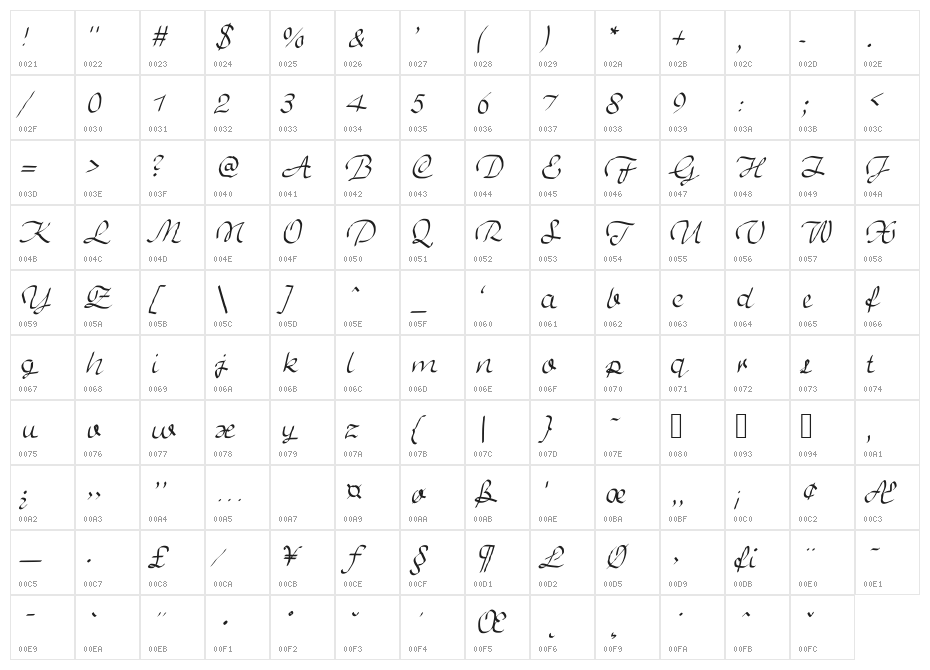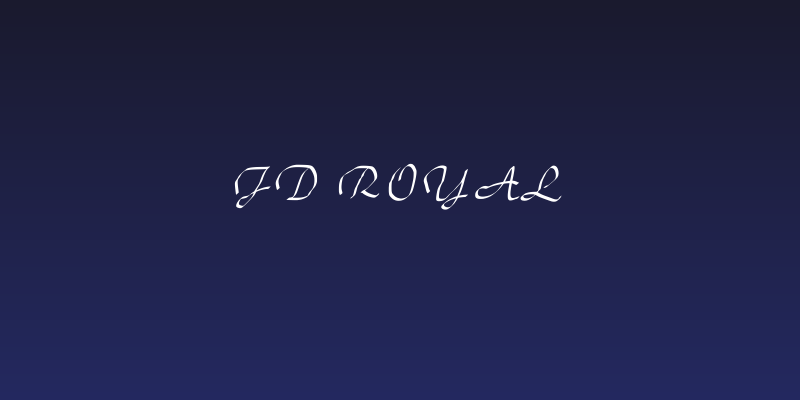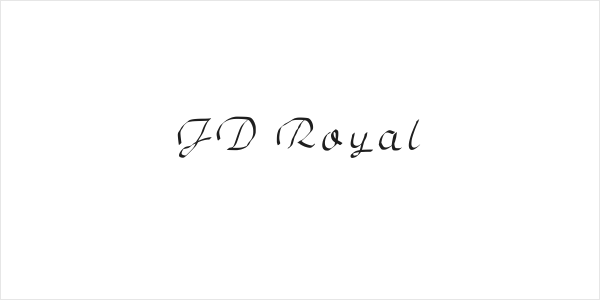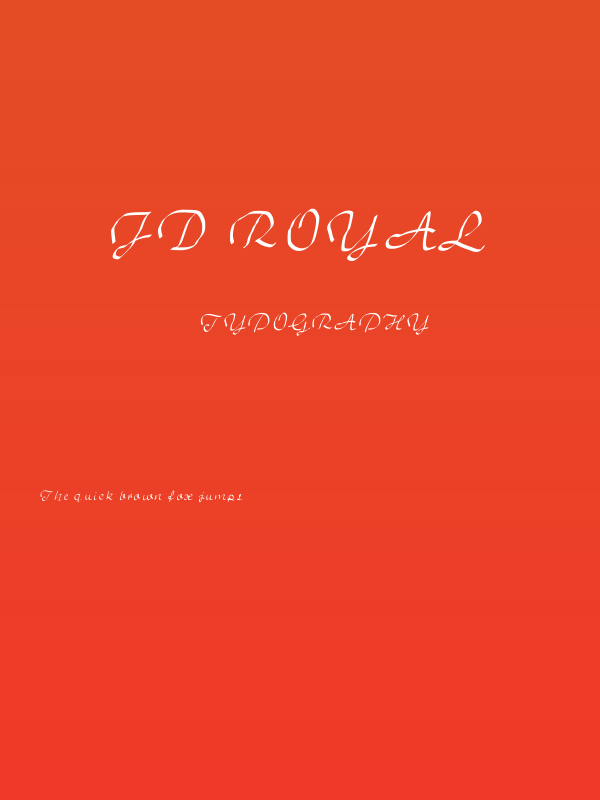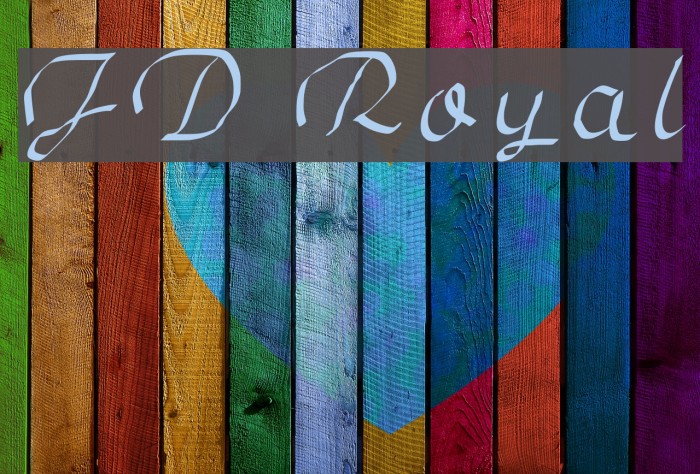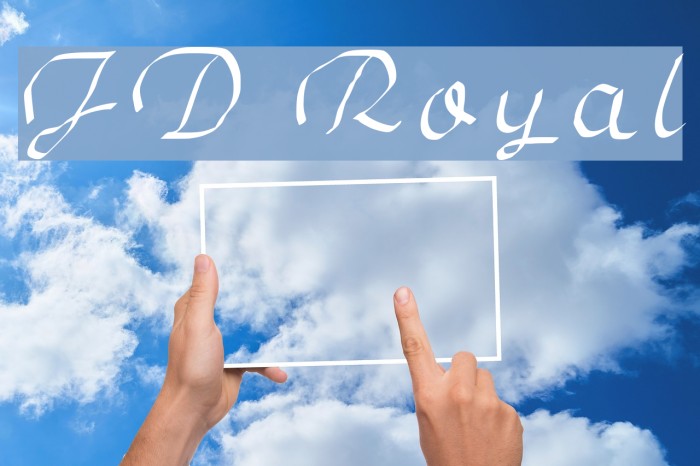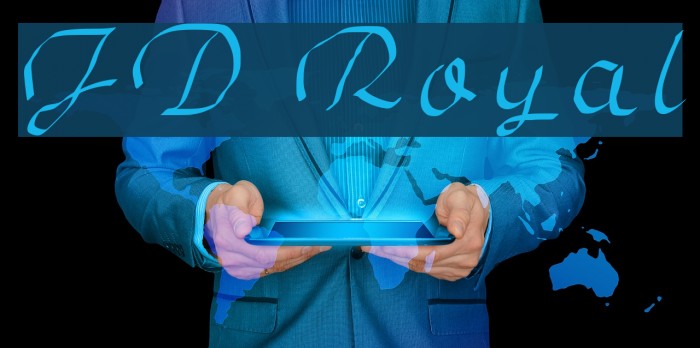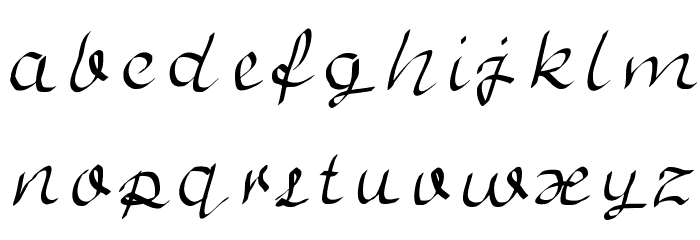
JD Royal Font
This font exudes elegance and sophistication with its flowing, cursive style. Each letter is crafted with a graceful, sweeping motion, reminiscent of traditional calligraphy. The uppercase letters are particularly ornate, with flourishes that add a touch of grandeur. The lowercase letters maintain a consistent style, offering a harmonious blend of curves and angles. Numbers and special characters are designed with the same attention to detail, ensuring a cohesive look across all elements. The overall appearance is both classic and refined, making it suitable for formal invitations, branding, and decorative purposes.
| Proposed Projects | Ideal for wedding invitations, luxury branding, greeting cards, and decorative signage. |